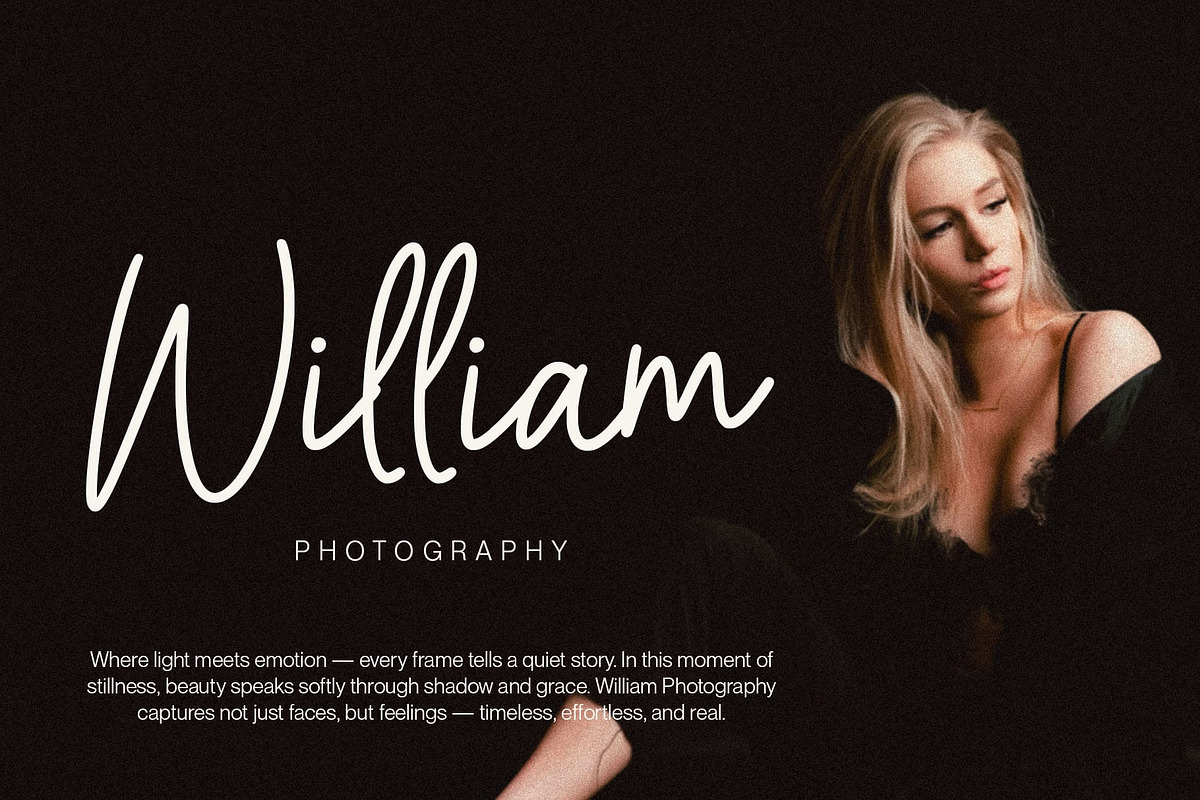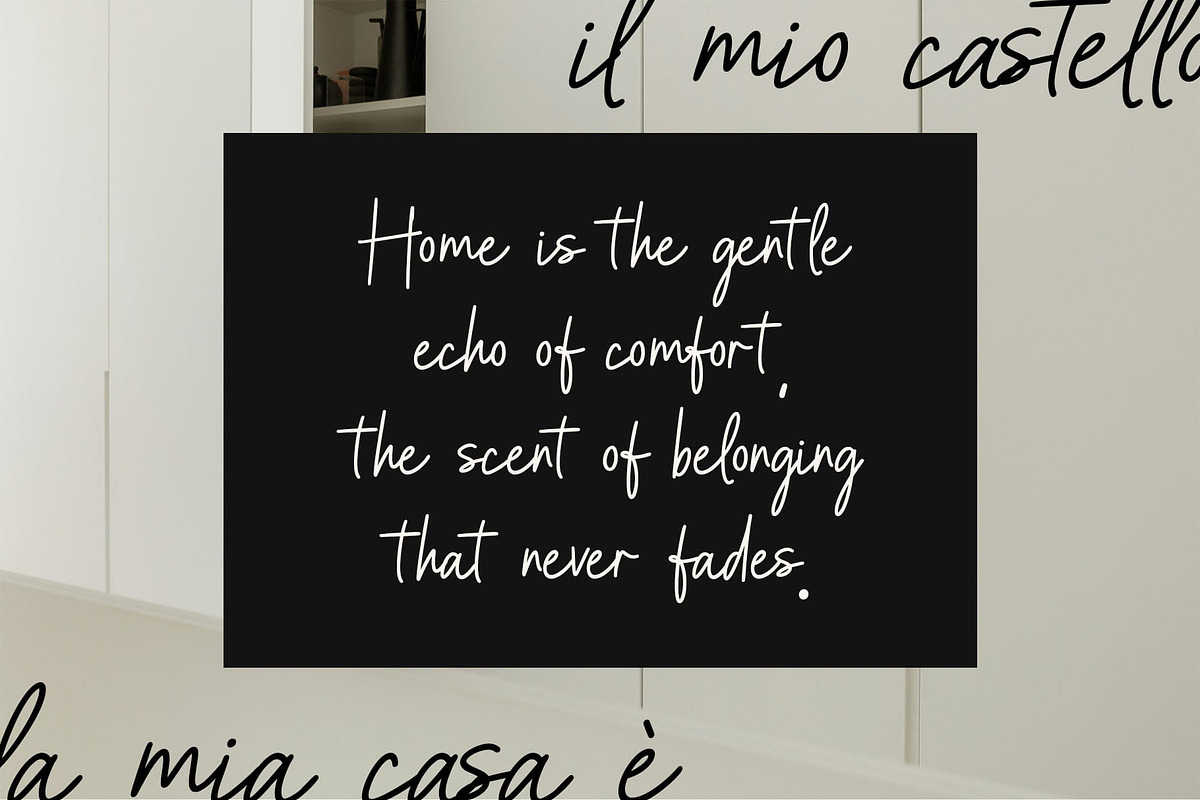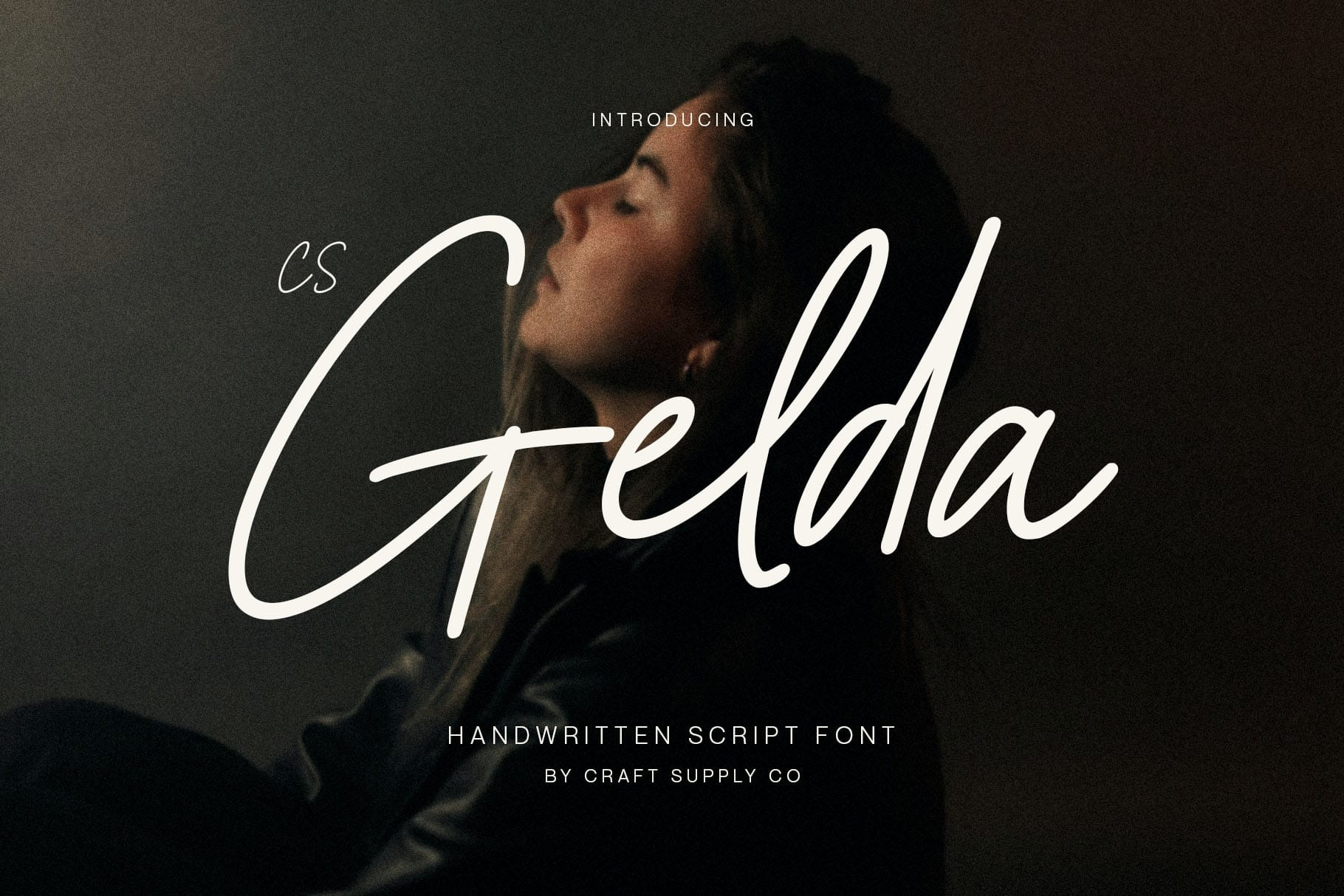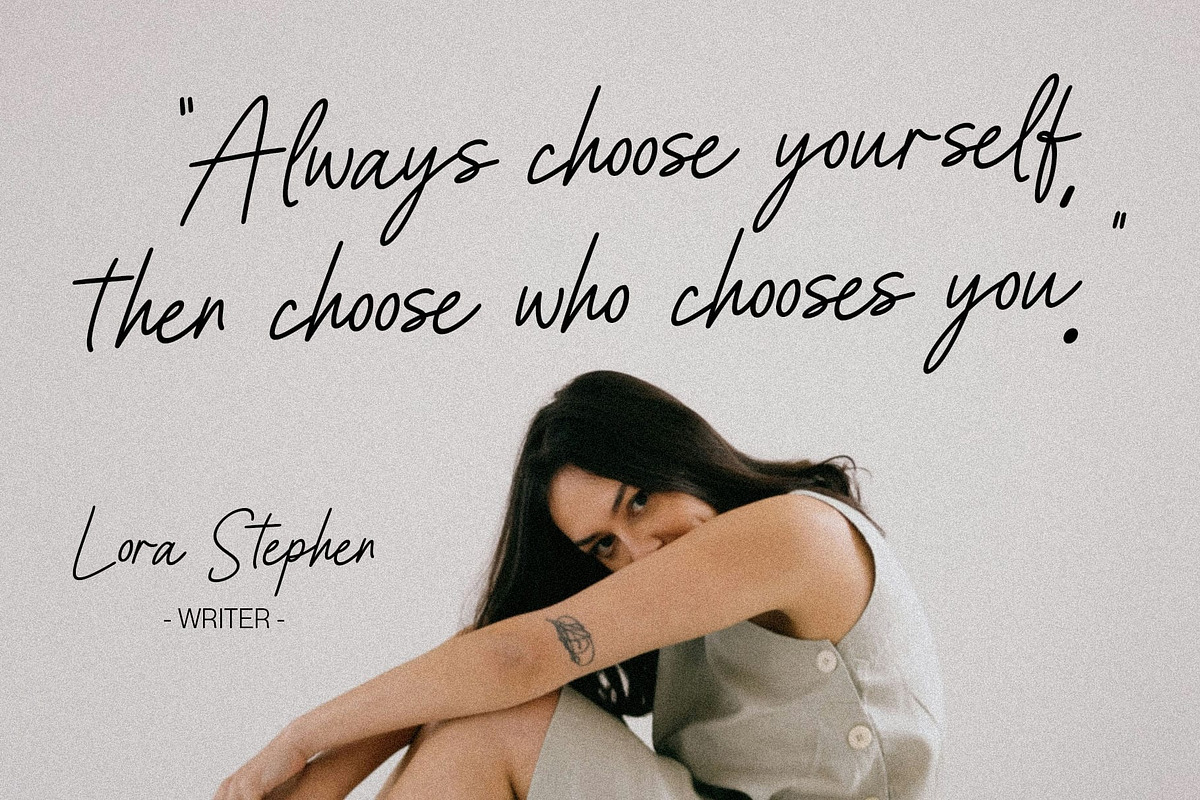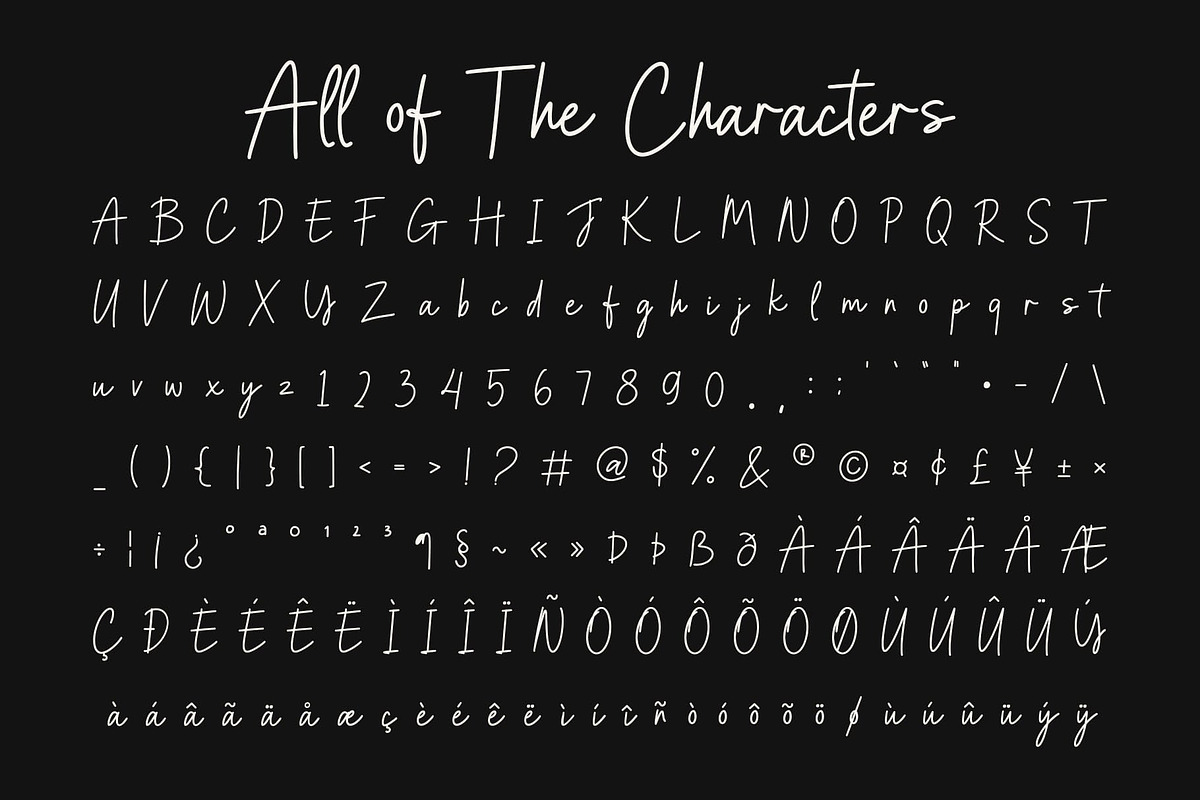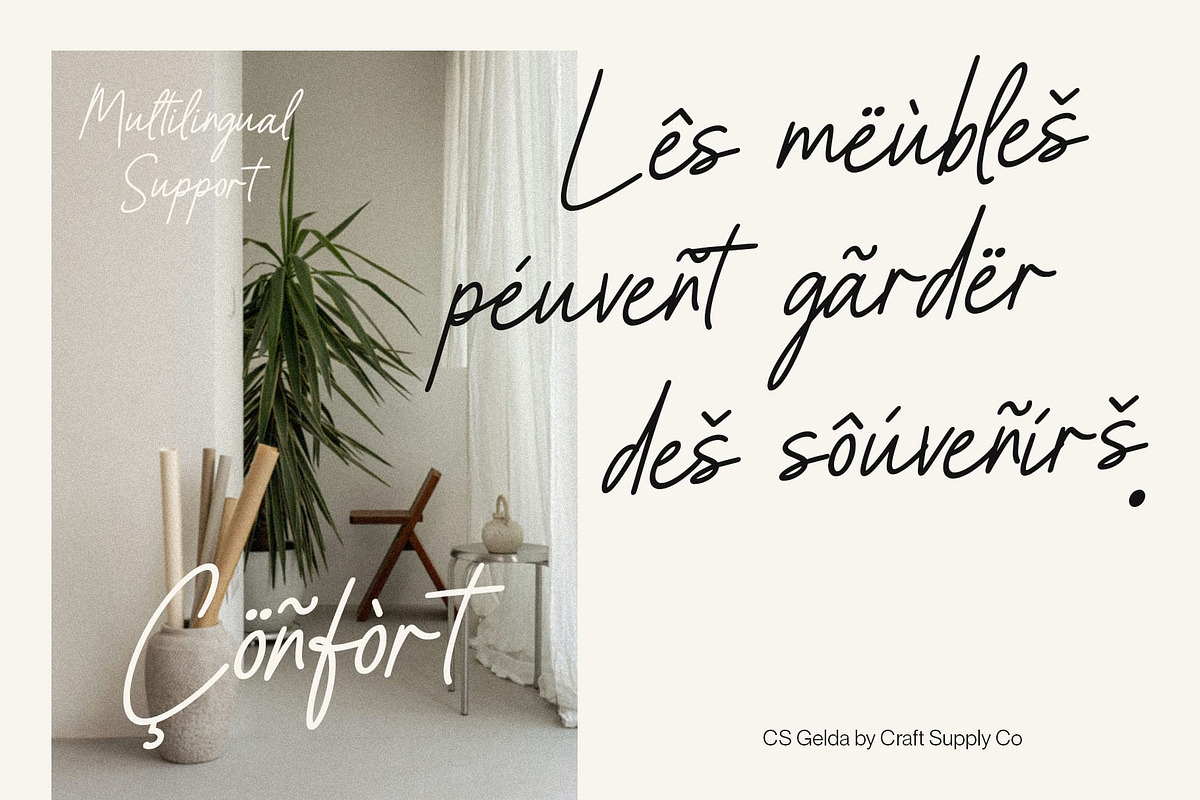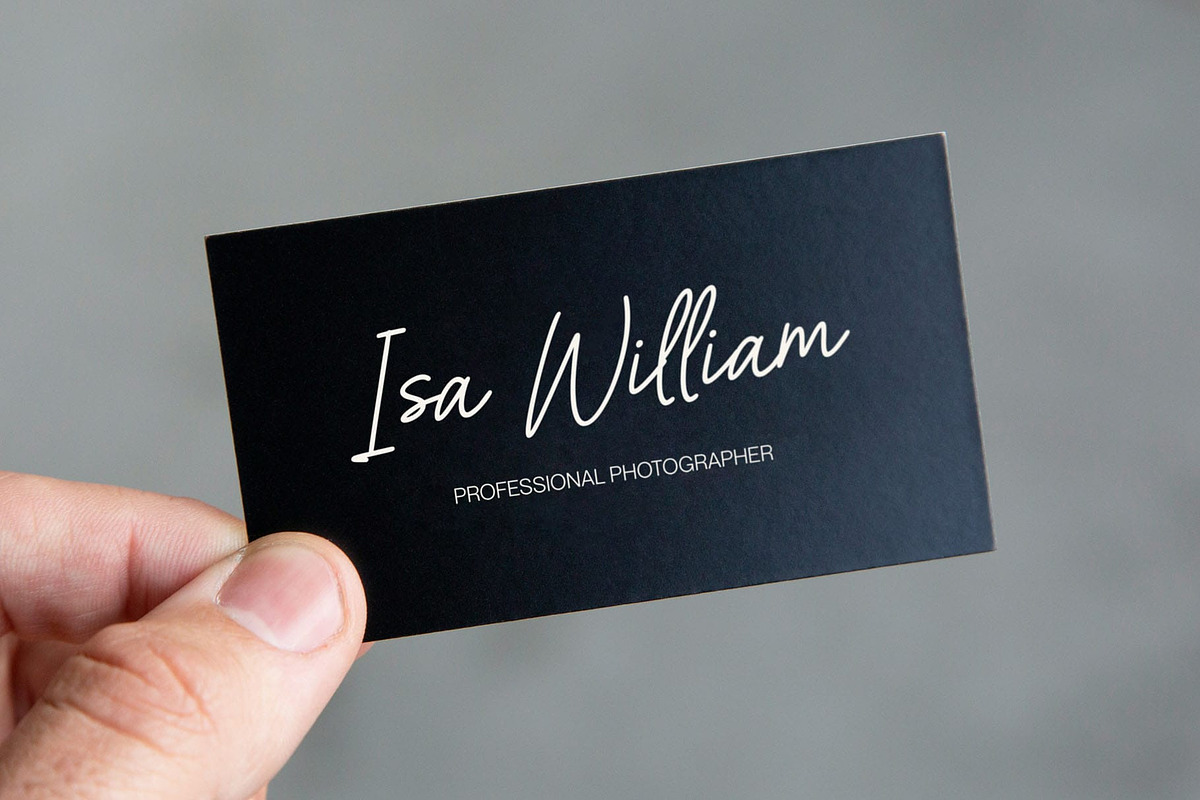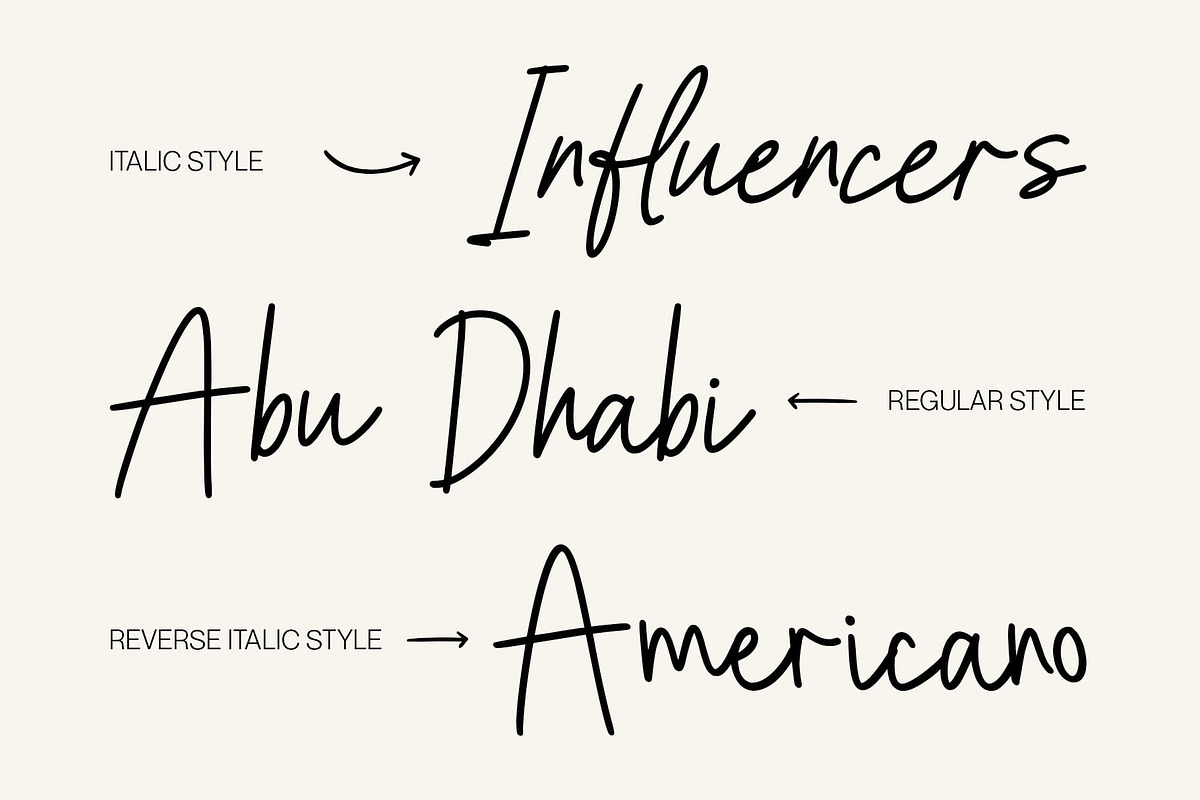
CS Gelda – Modern Script Font
CS Gelda – Handwritten Script Font: Modern Elegance in Every Stroke
Refined Beauty with a Modern Touch This is a modern script font that combines graceful flow with contemporary style. Each curve and connection is thoughtfully crafted to reflect beauty and sophistication, creating a refined handwritten look that feels both personal and polished. Its sleek lines and balanced rhythm make it perfect for capturing an elegant yet modern aesthetic.
Elegant Flow and Italian Sophistication Inspired by Italian handwriting and timeless luxury, this font radiates an aura of charm and confidence. The smooth monoline strokes flow effortlessly, creating a sense of movement and warmth. This balance between precision and fluidity makes it ideal for designs that seek to evoke romance, class, and high-end appeal.
Perfect for Branding and Luxury Design Whether used for branding, wedding invitations, or luxury packaging, this font enhances your project with a sense of refined artistry. Its modern elegance complements logos, fashion labels, and editorial layouts, allowing every word to stand out with style and grace.
Versatile and Timeless Appeal From elegant stationery to digital graphics, this font adapts beautifully across different mediums. Its harmonious structure and natural rhythm make it an excellent choice for designers who value sophistication, versatility, and a handwritten touch that exudes confidence and charm.